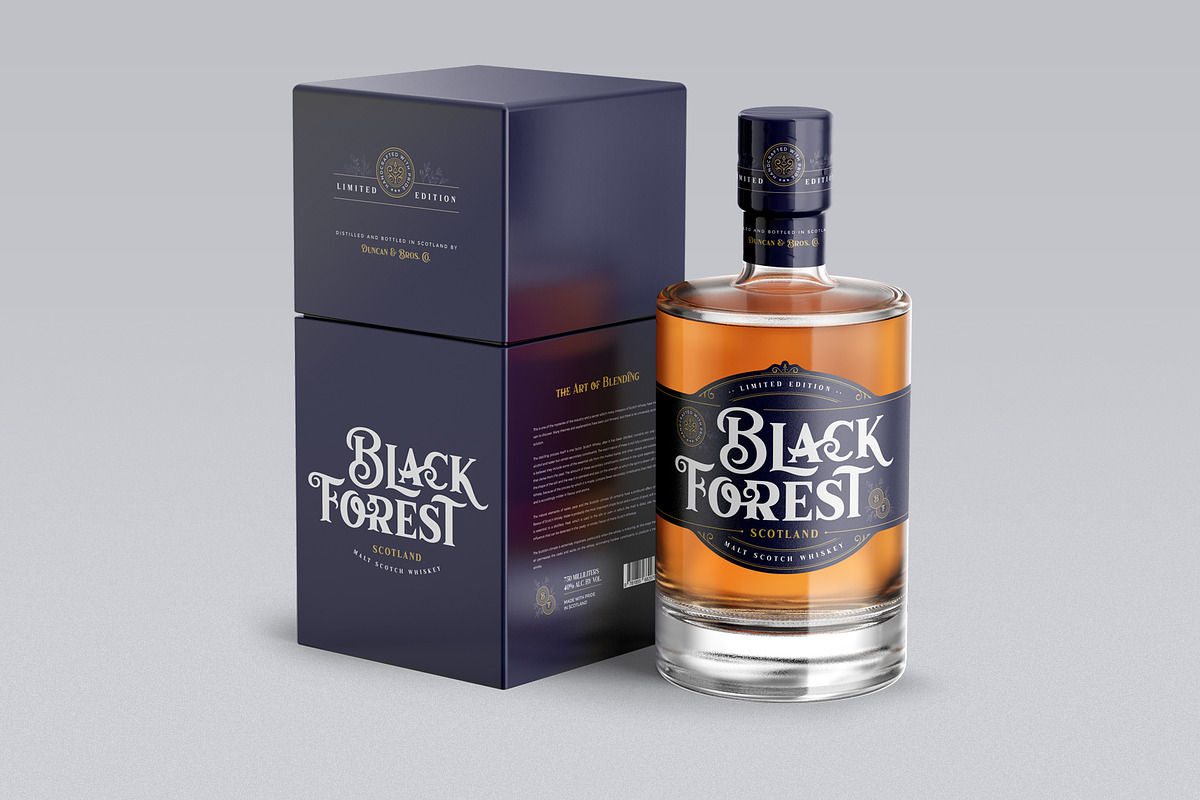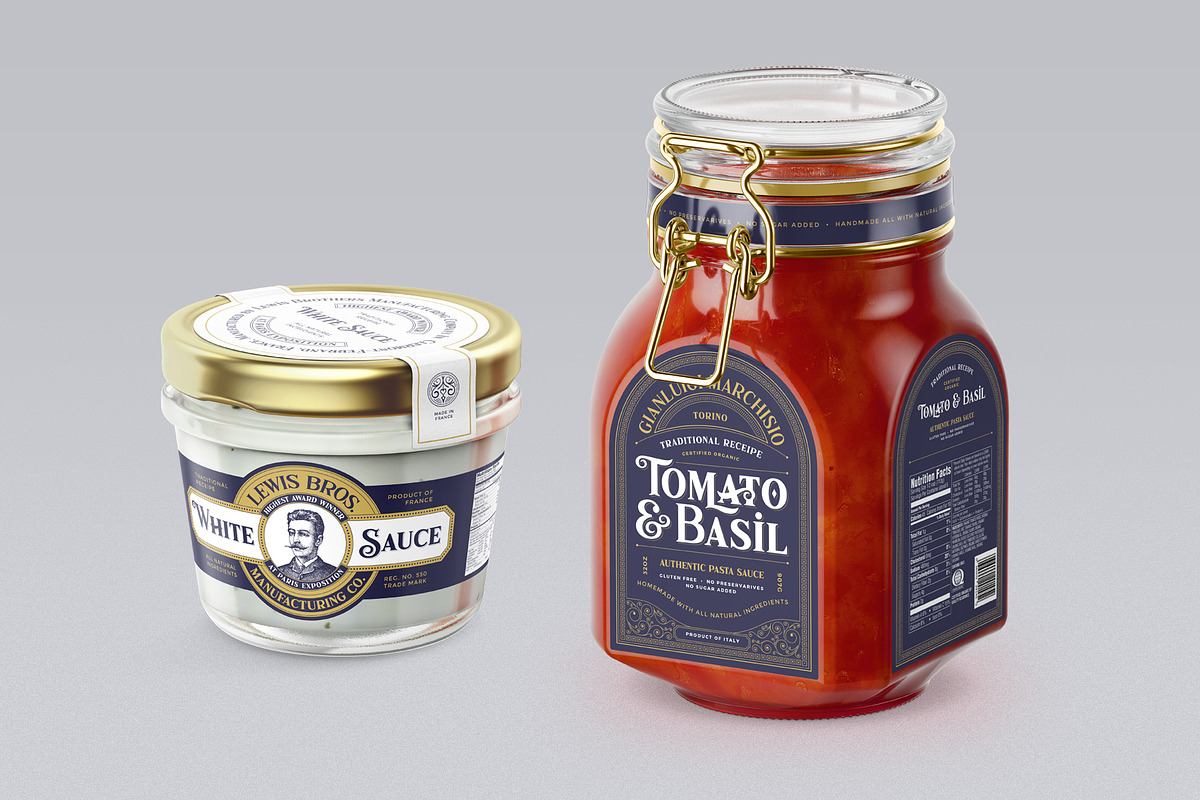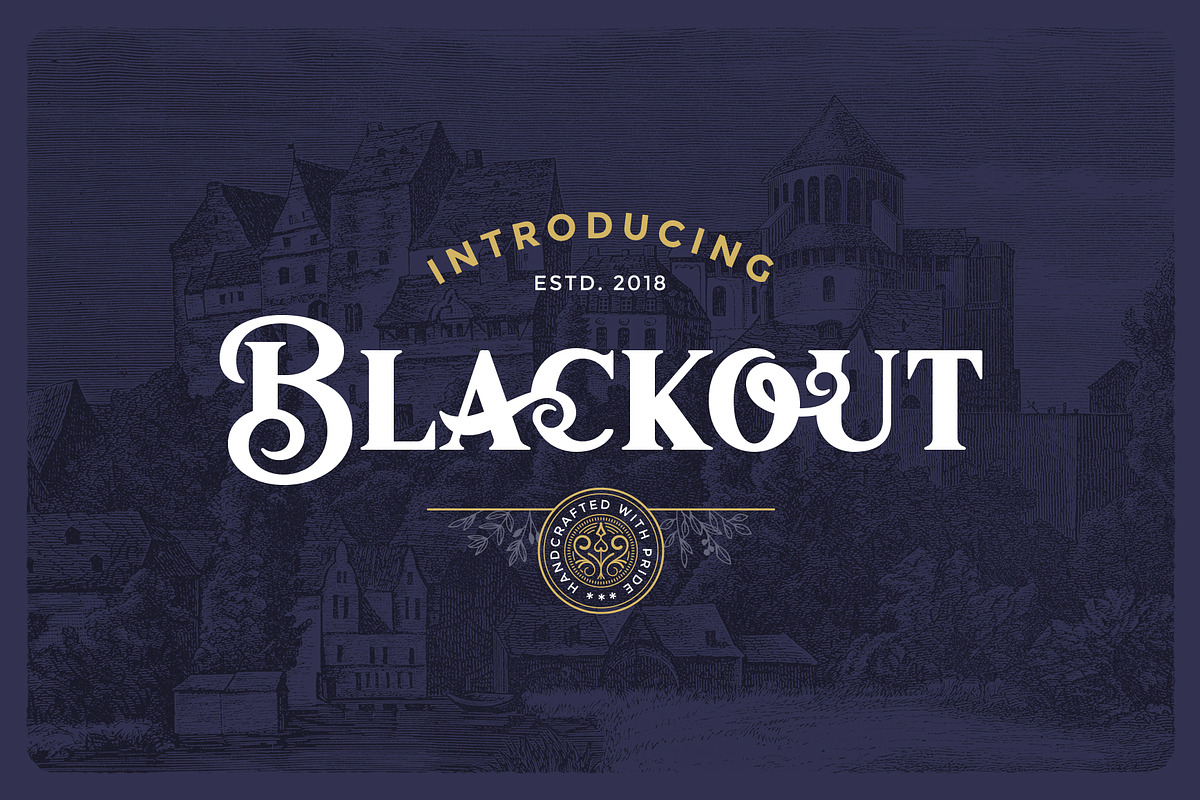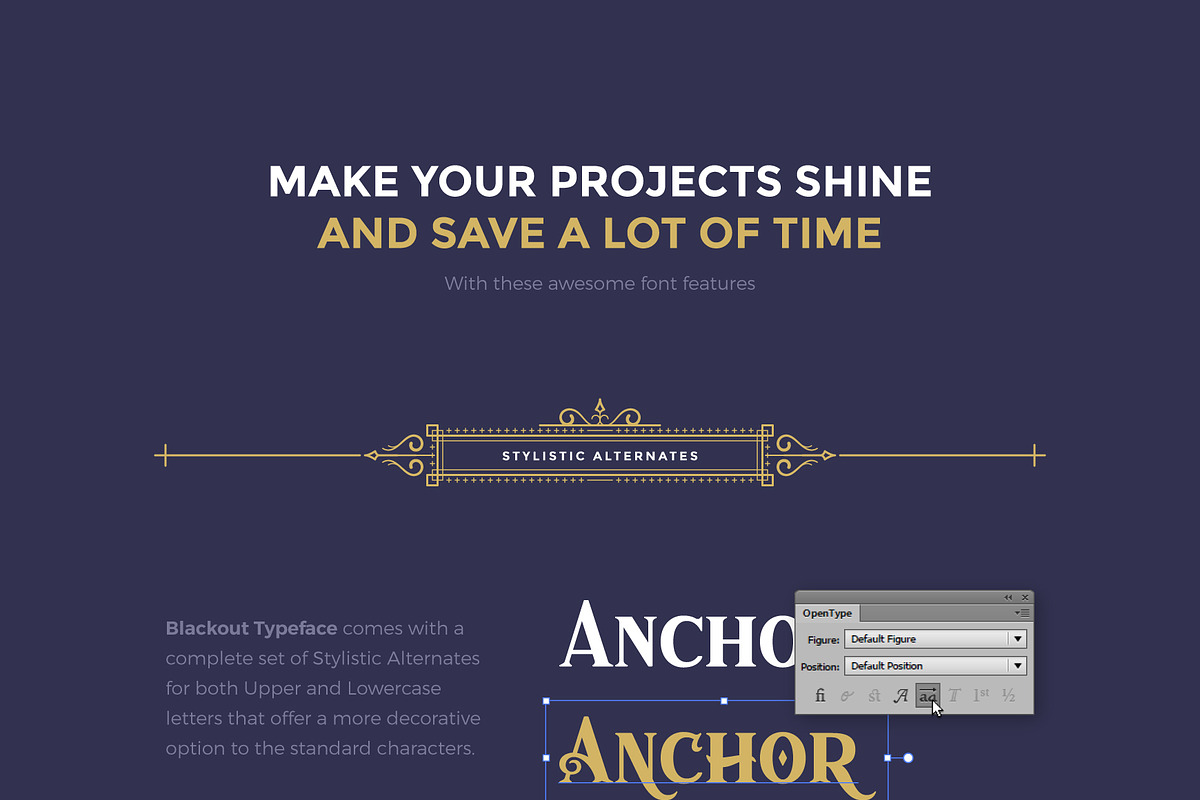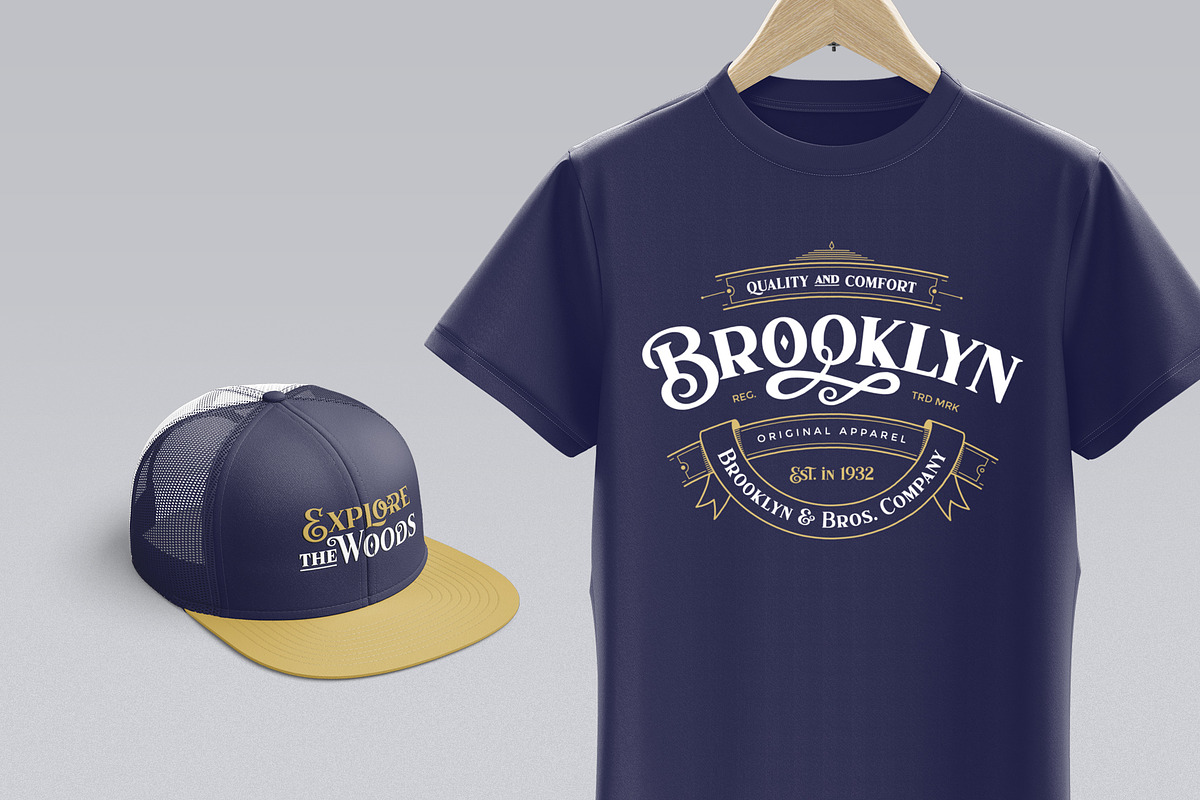
Blackout Typeface
Introducing a new display vintage font with tons of cool characters, symbols, and OpenType Features. Blackout Typeface is perfect for quotes, logos, apparel, advertising, wedding invitations and packaging design.
All Caps & Small Caps font
Symbols & Punctuation
A total of 280 Glyphs
Blackout Typeface comes with a complete set of Stylistic Alternates for both Upper and Lowercase letters that offer a more decorative option to the standard characters.
To add an elegant touch to your design, Blackout Typeface includes 12 flourish swash characters for some of the most used letters in the alphabet.
Blackout Typeface supports most Latin Script languages such as English, Spanish, French, German, Portuguese, Italian, Norwegian, Swedish, Irish, Turkish, etc.
Blackout Typeface provides a wide variety of Discretionary Ligatures that combines characters in an atractive and decorative way.
To make your design even more awesome and add a vintage touch, grab and place one of the bonus characters included into the Blackout Typeface.
Why Blackout Typeface is worth a look
Blackout Typeface by Victor Barac fits naturally into Branding, posters, packaging, typography.